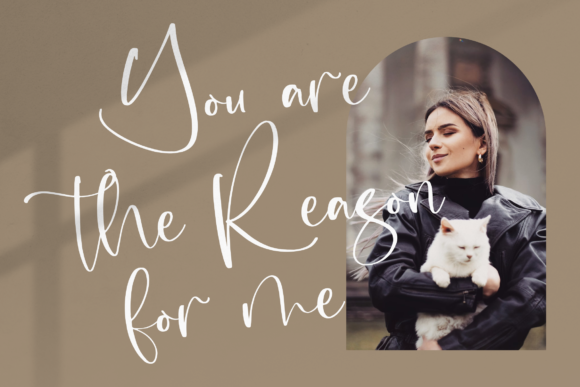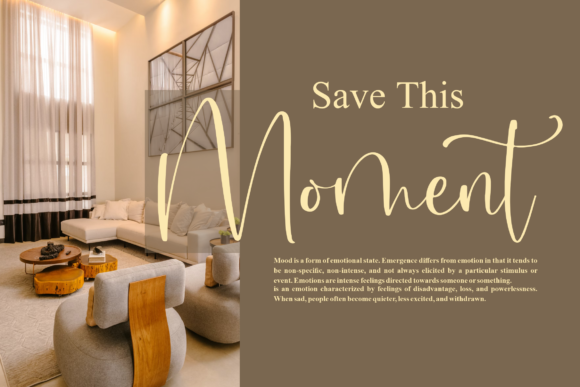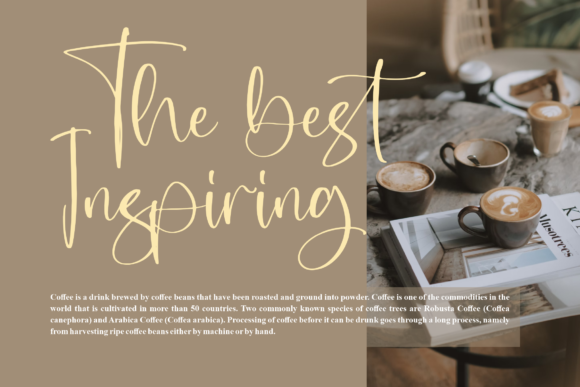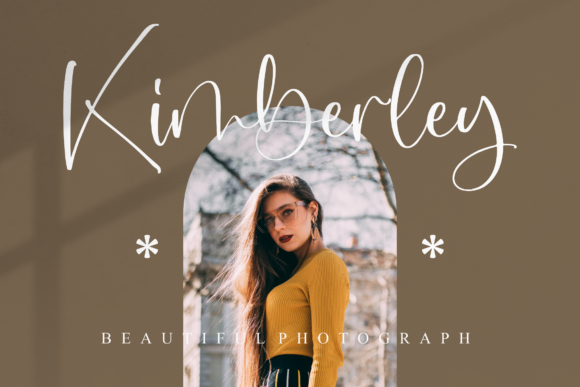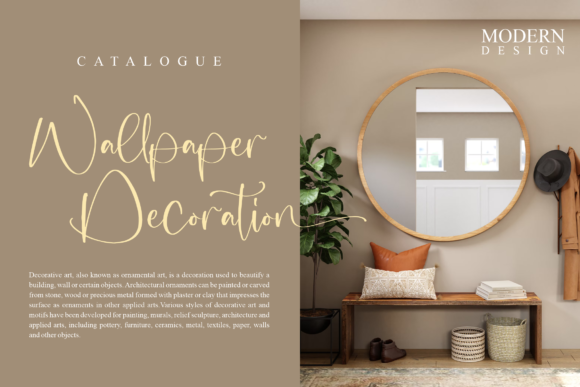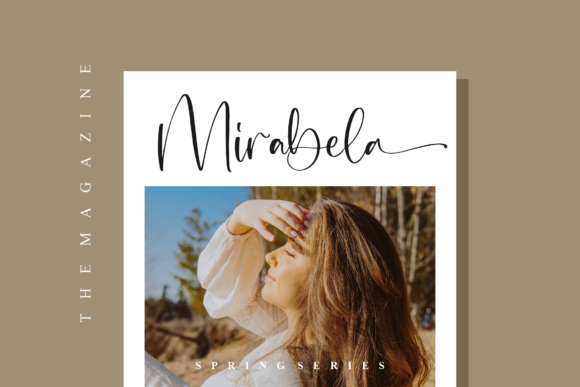
Introduction to Noisette Rose Font Font
Fonts play a crucial role in design, and the Noisette Rose Font font is a typeface that brings both character and versatility to any project. Whether you’re working on a branding project, a website, or a print design, the Noisette Rose Font font offers a unique style that can elevate your work.
Noisette Rose is suitable for any projects such as logos, branding projects, homeware designs, product packaging, mugs, quotes, posters, shopping bags, t-shirts, book covers, name cards, invitation cards, greeting cards, labels, photography, watermark, special events, and all your other lovely projects that need a beautiful script taste.
Key Features of Noisette Rose Font Font
Why Choose Noisette Rose Font Font?
The Noisette Rose Font font is more than just a typeface – it’s a design tool that helps you communicate your message with style and clarity. Its unique character set and versatile design make it suitable for a wide range of applications, from elegant invitations to bold headlines.
With its carefully crafted letterforms and balanced proportions, the Noisette Rose Font font ensures readability and visual appeal across all mediums.
What makes Noisette Rose Font font special?
The Noisette Rose Font font stands out with its unique design, exceptional readability, and versatility across various design applications.